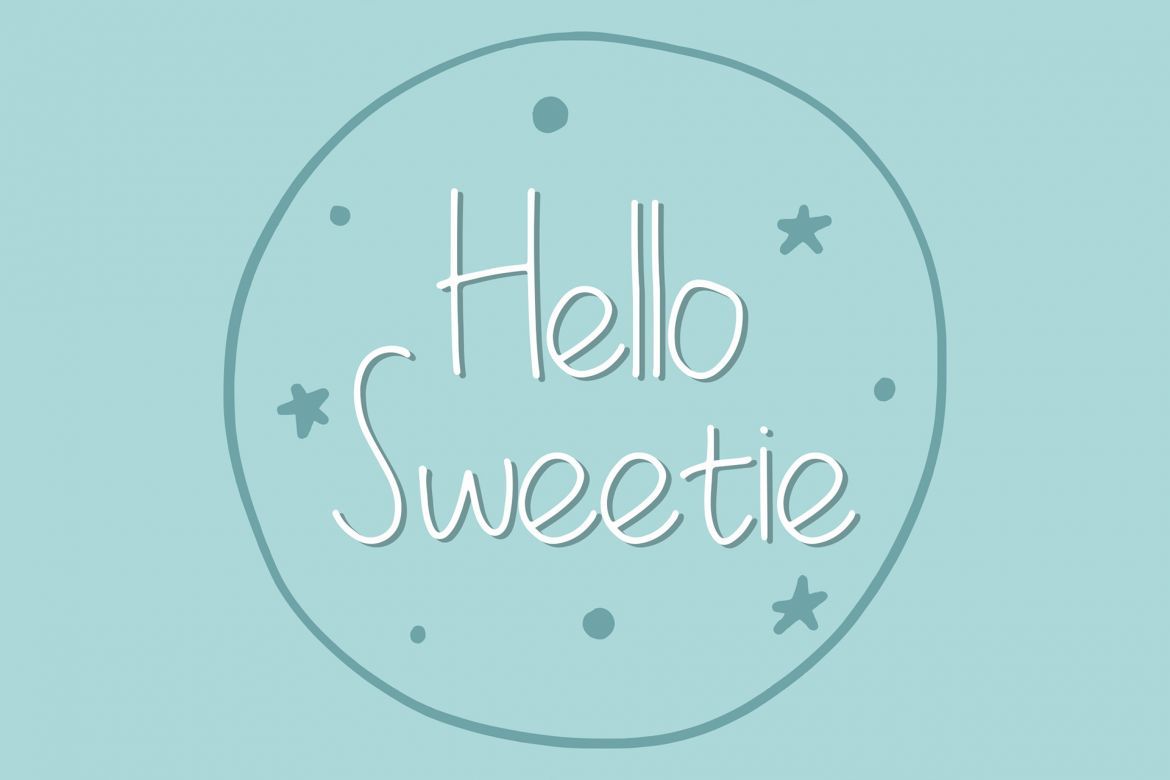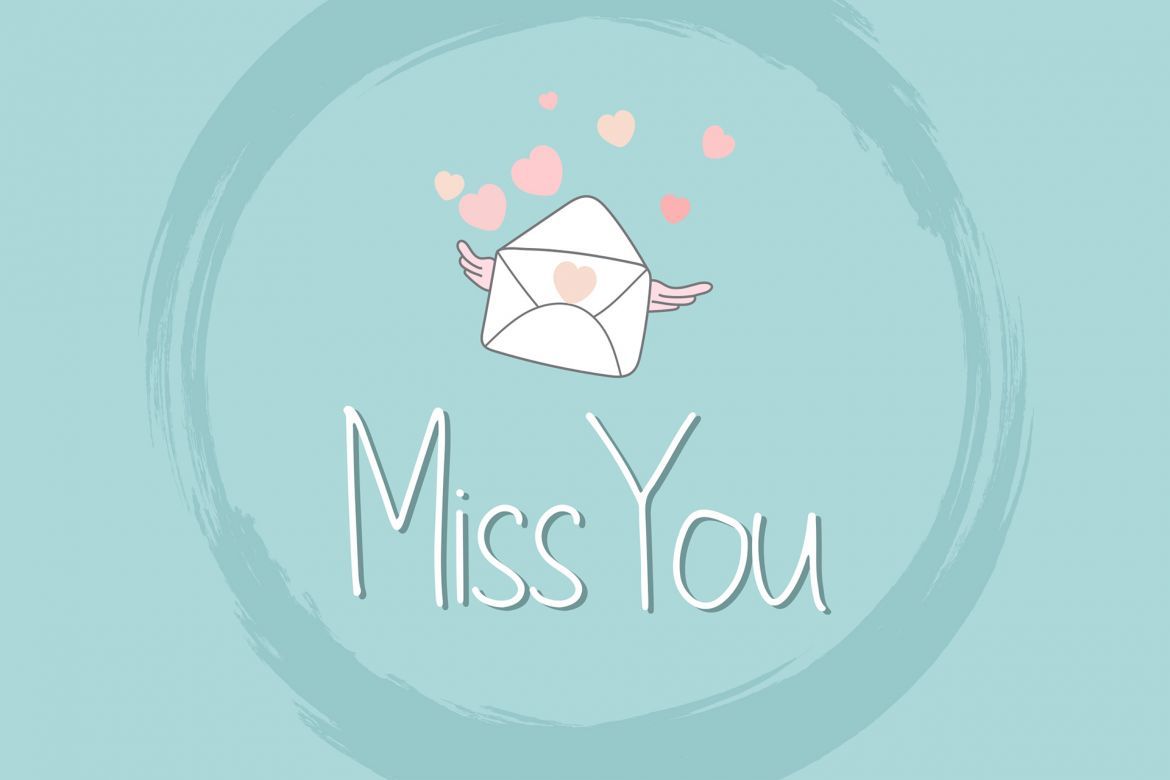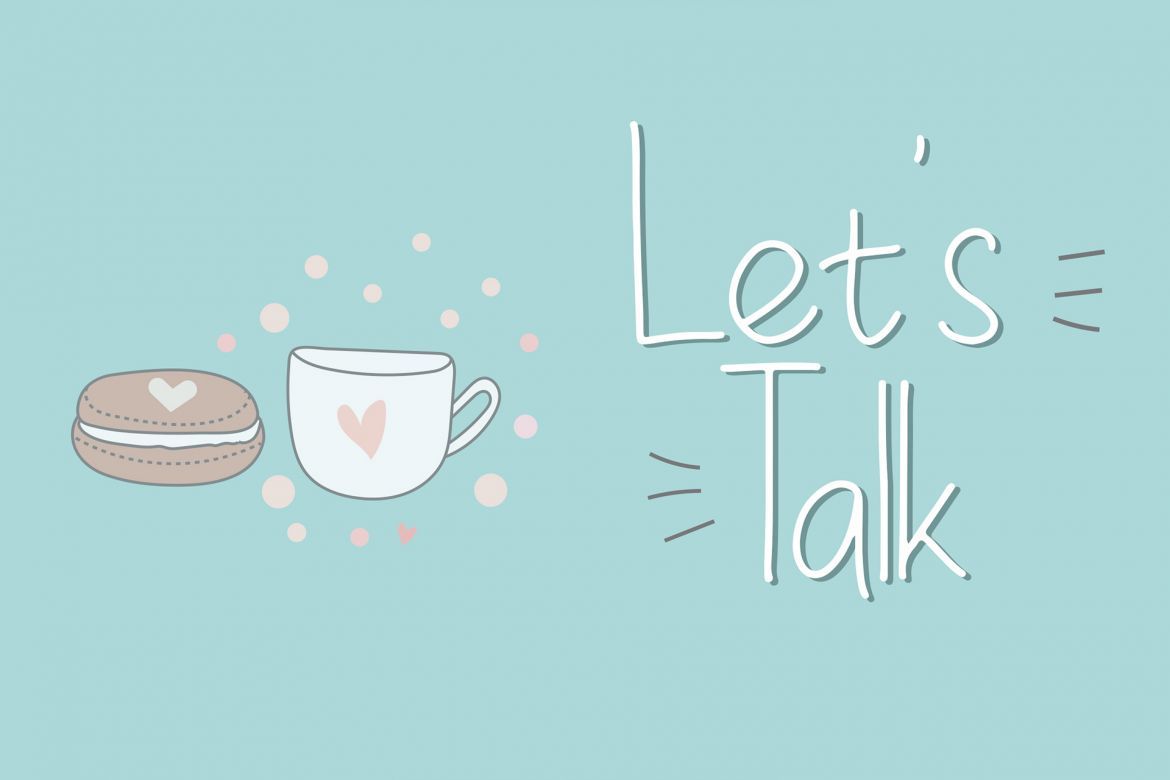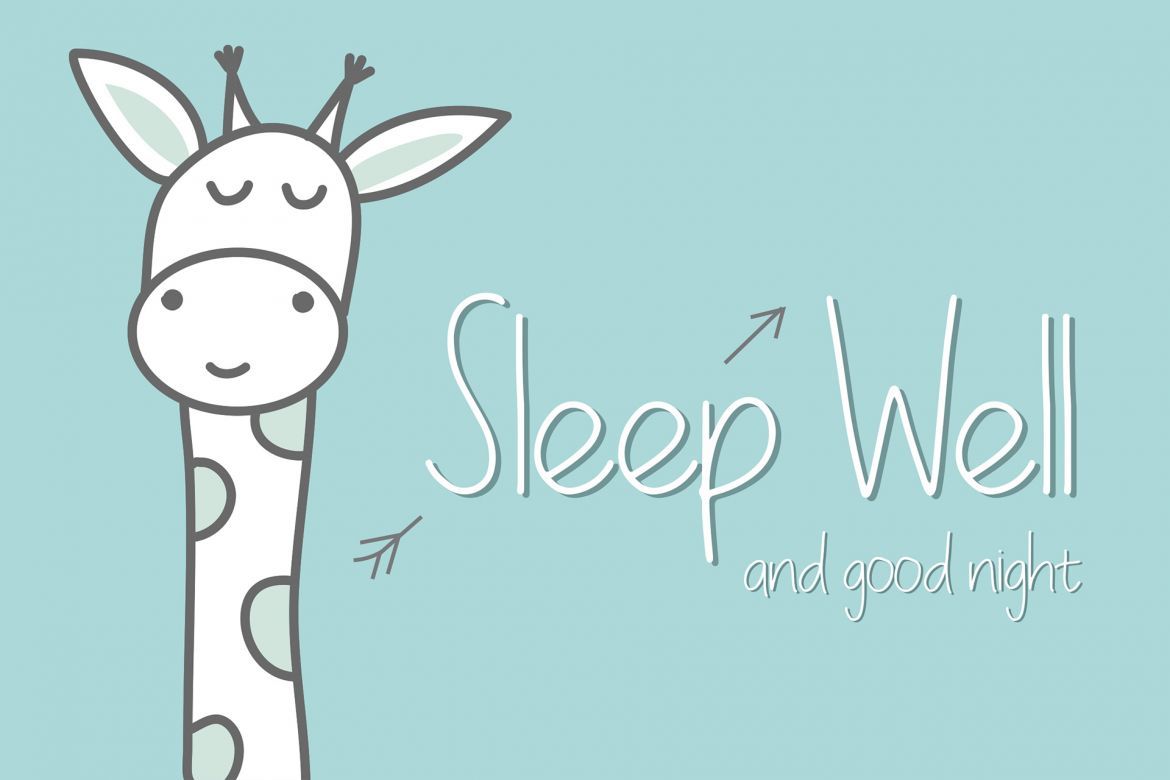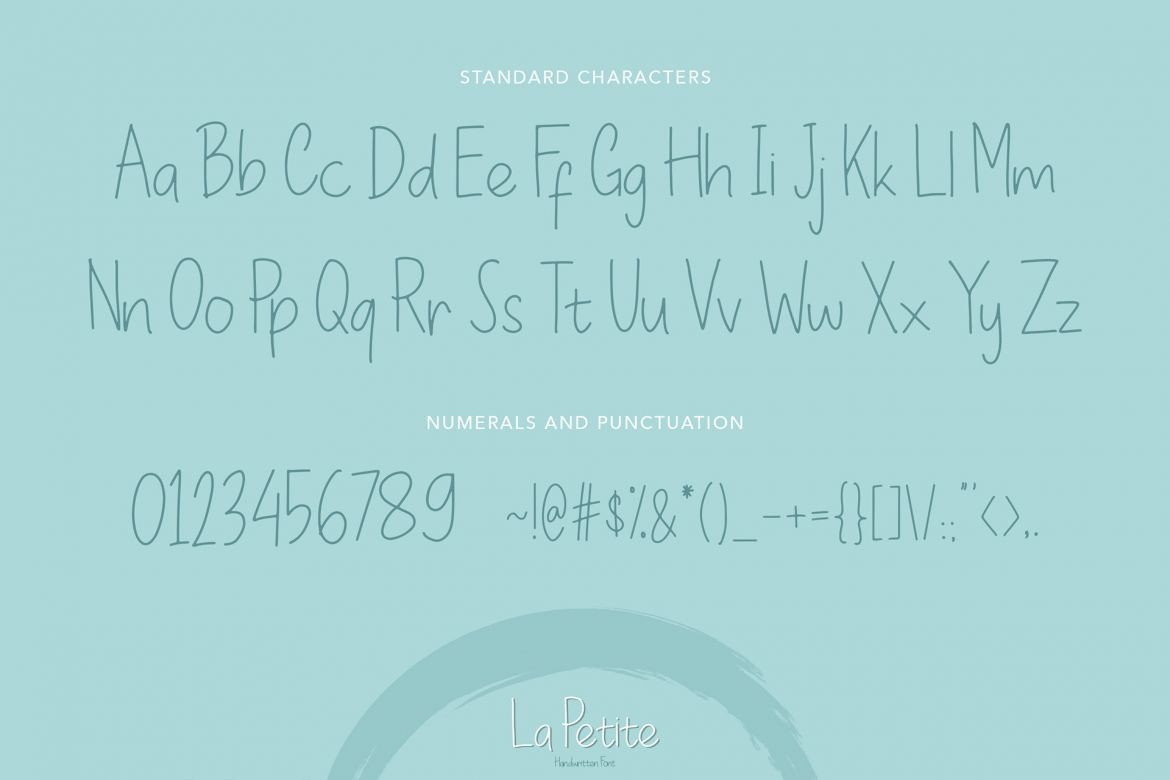
La Petite Handwritten Font
La Petite is a soft and friendly font type, it's a perfect fit for the children/kids and informal theme, product packaging, book or magazine cover - or a stylish text overlay to any background image. It's also could be good for both fun and semi-formal text.
• font type with fun, elegant and clean character
• numbering and punctuation
• uppercase & lowercase letters